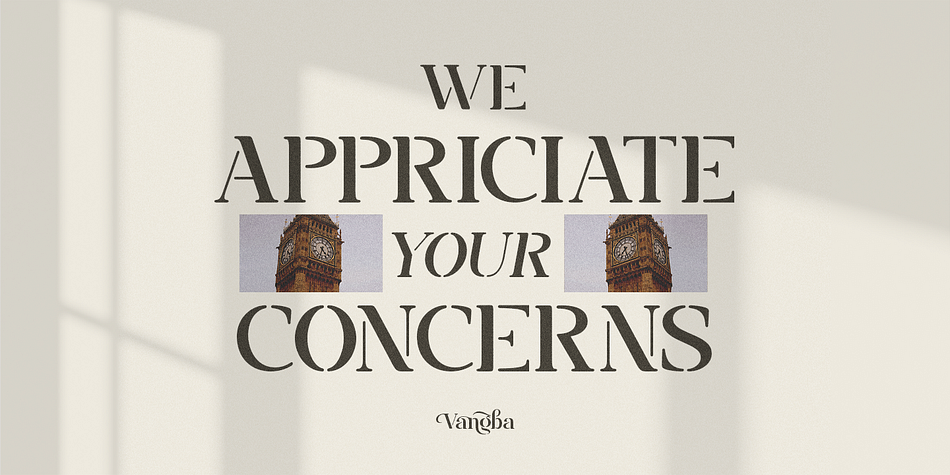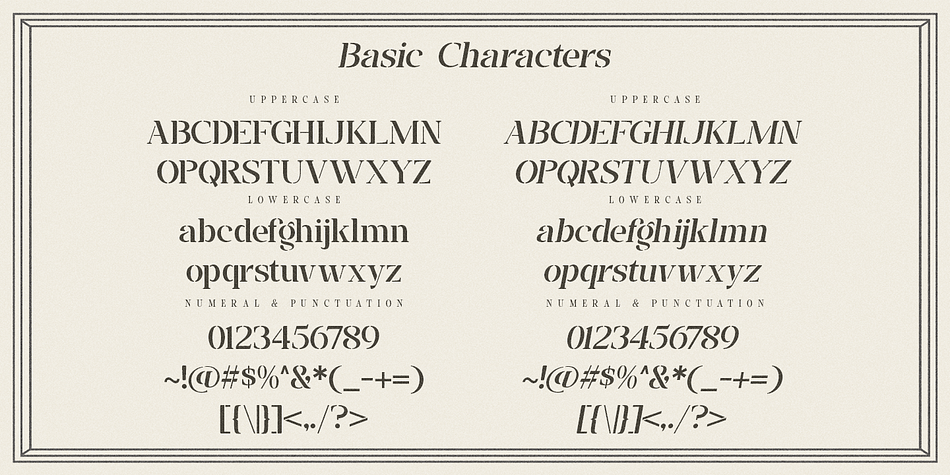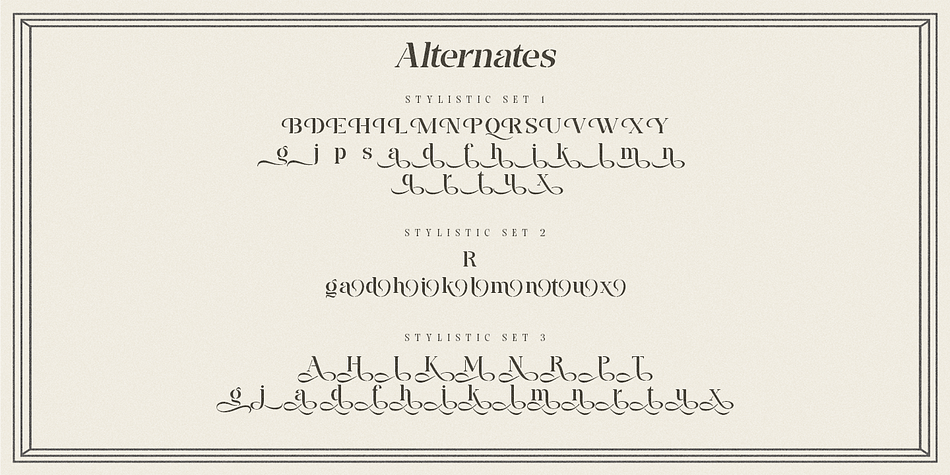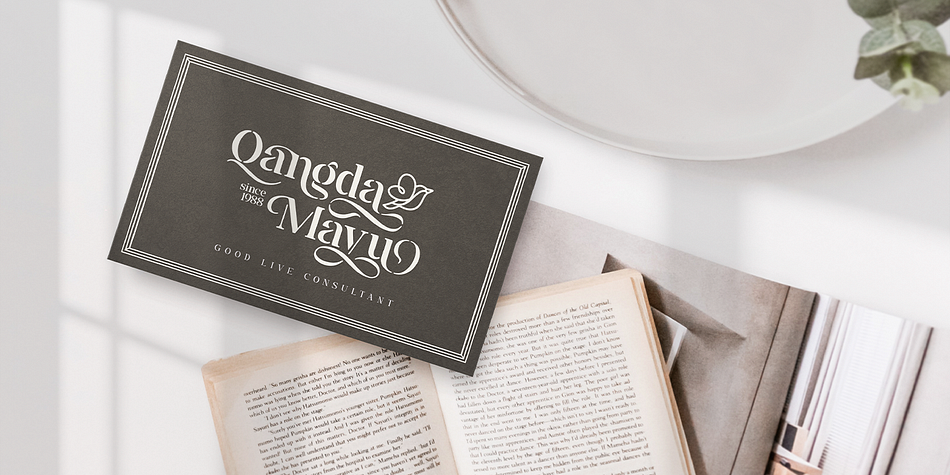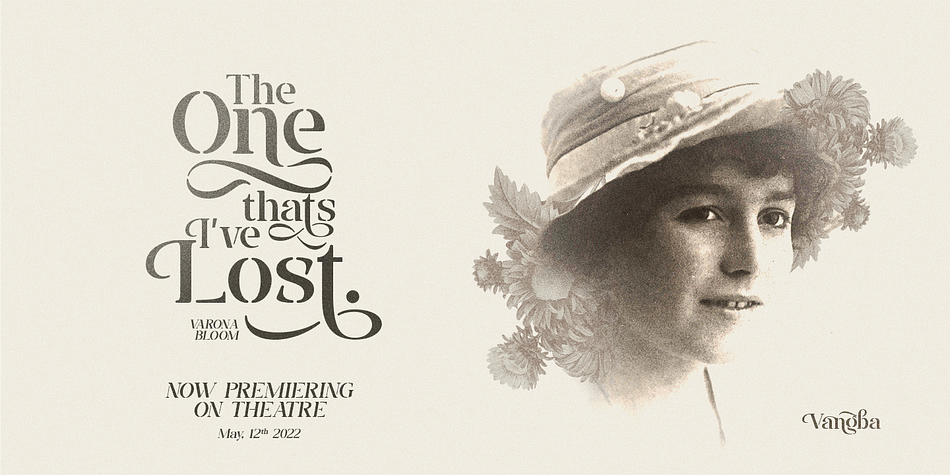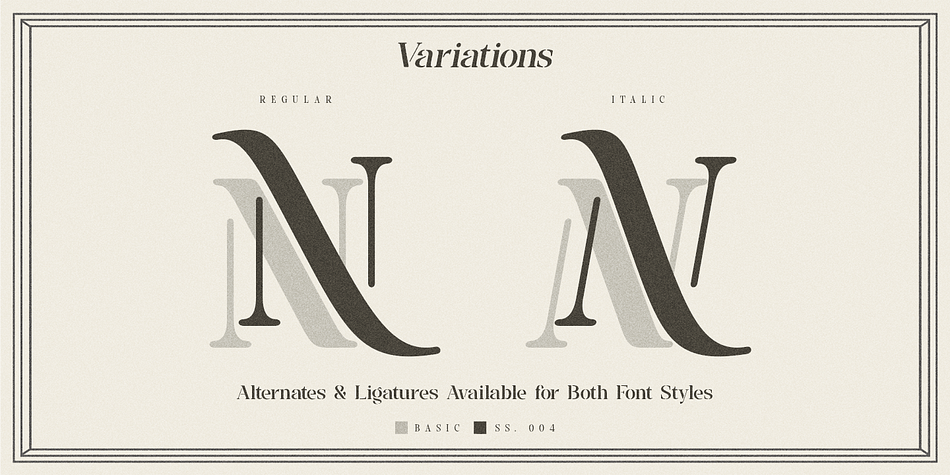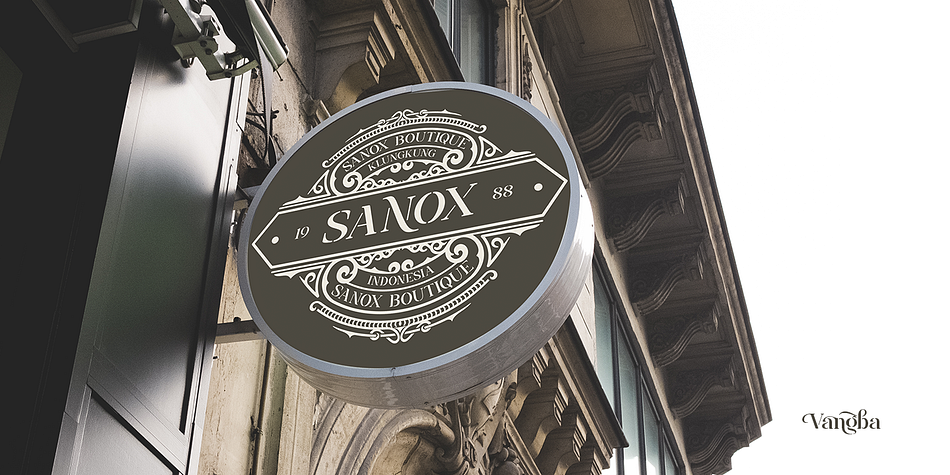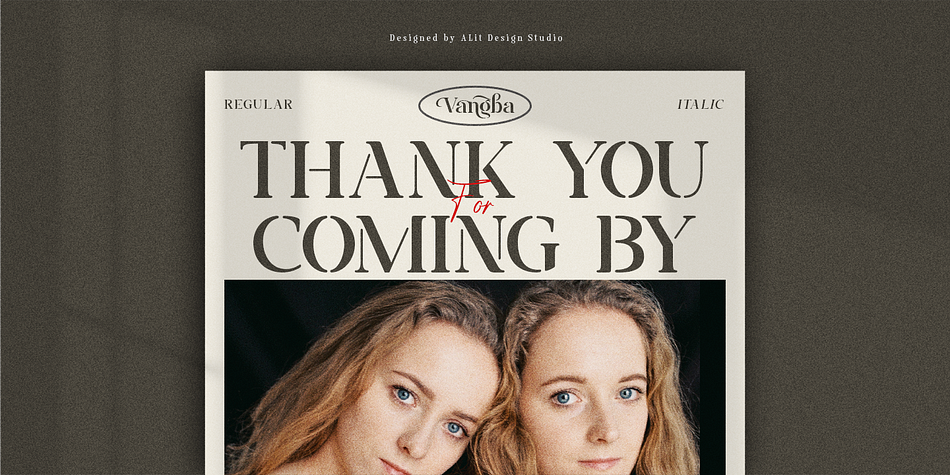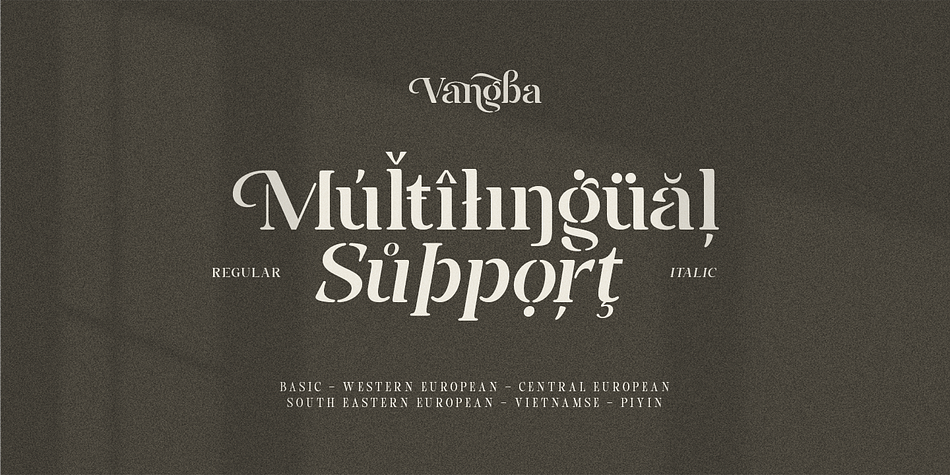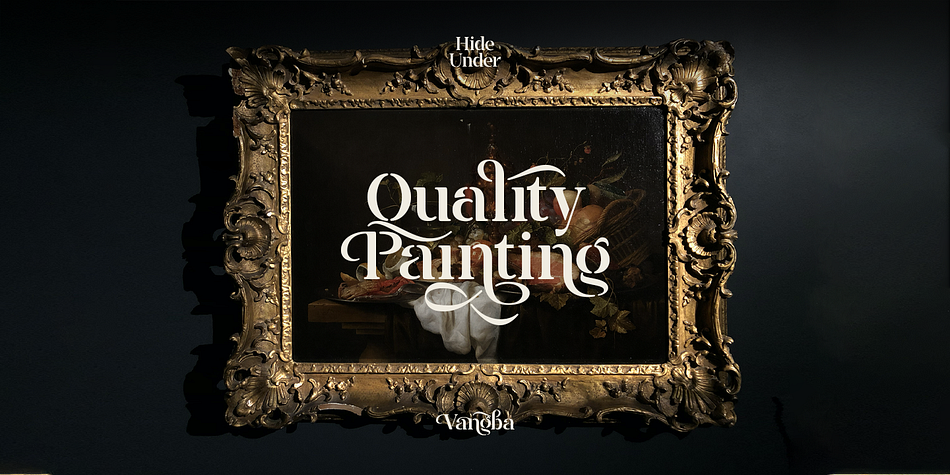
Vangba
Designed by Alit Suarnegara, Vangba is a display serif and stencil font family. This typeface has two styles and was published by Alit Design.
Introducing Vangba Typeface
The Vangba font is designed with a serif font concept that has a elegant stencil style. Irregular dynamic shapes but impressively regular and unique make the font “Vangba” different and steal attention.
Serif typefaces such as “Vangba” are very easy to apply to any design, especially those with an retro, elegant and classic, besides that this font is very easy to use both in design and non-design programs because everything changes and glyphs are supported by Unicode (PUA).
The “Vangba"contains 656 glyphs with many unique and interesting alternative options. In addition to the regular font, there is also an italic version of the Vangba font.